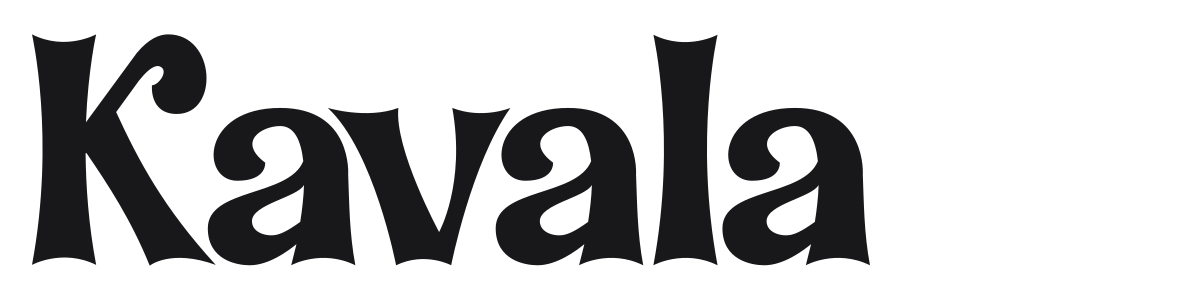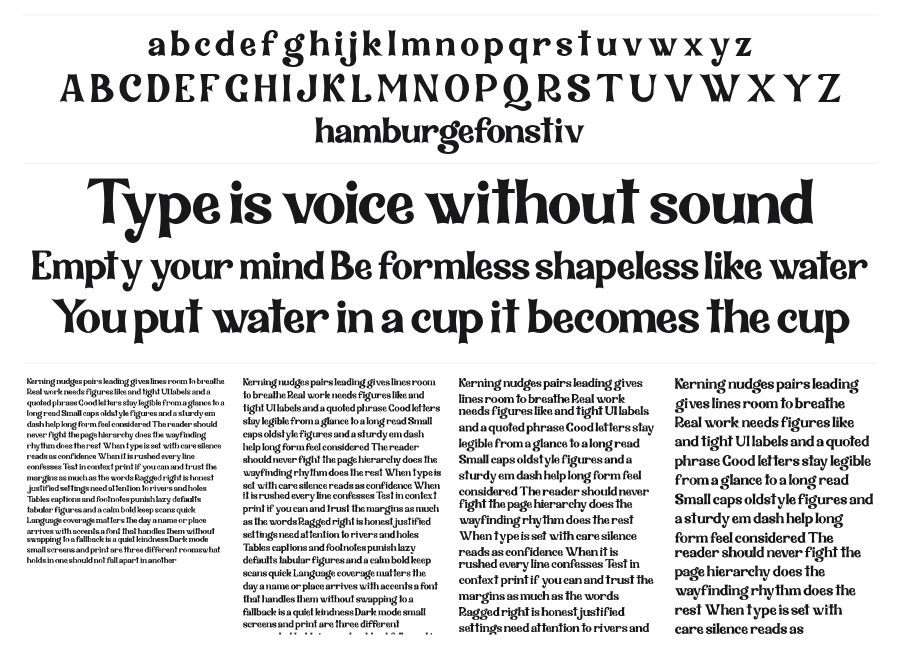
Kavala
Kavala is a bold modern serif with extreme stroke contrast and dramatically flared, cupped serifs that recall the expressive display typography of the 1970s. The heavy weight and wide proportions give it real presence on a page, while the rounded ball details keep it warm rather than cold. It suits headline work, brand identity, and packaging where a retro-modern confidence is the goal.